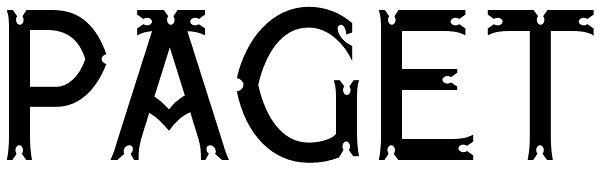
Paget
Paget is a modern exploration of Tuscan design. Here you'll find simple geometric outlines with an 'Arts and Craft' charm about them. Paget is beautifully clear and easy to read, but offers a distinctive charm that conventional sans serif and serif...
Paget Oblique
Paget